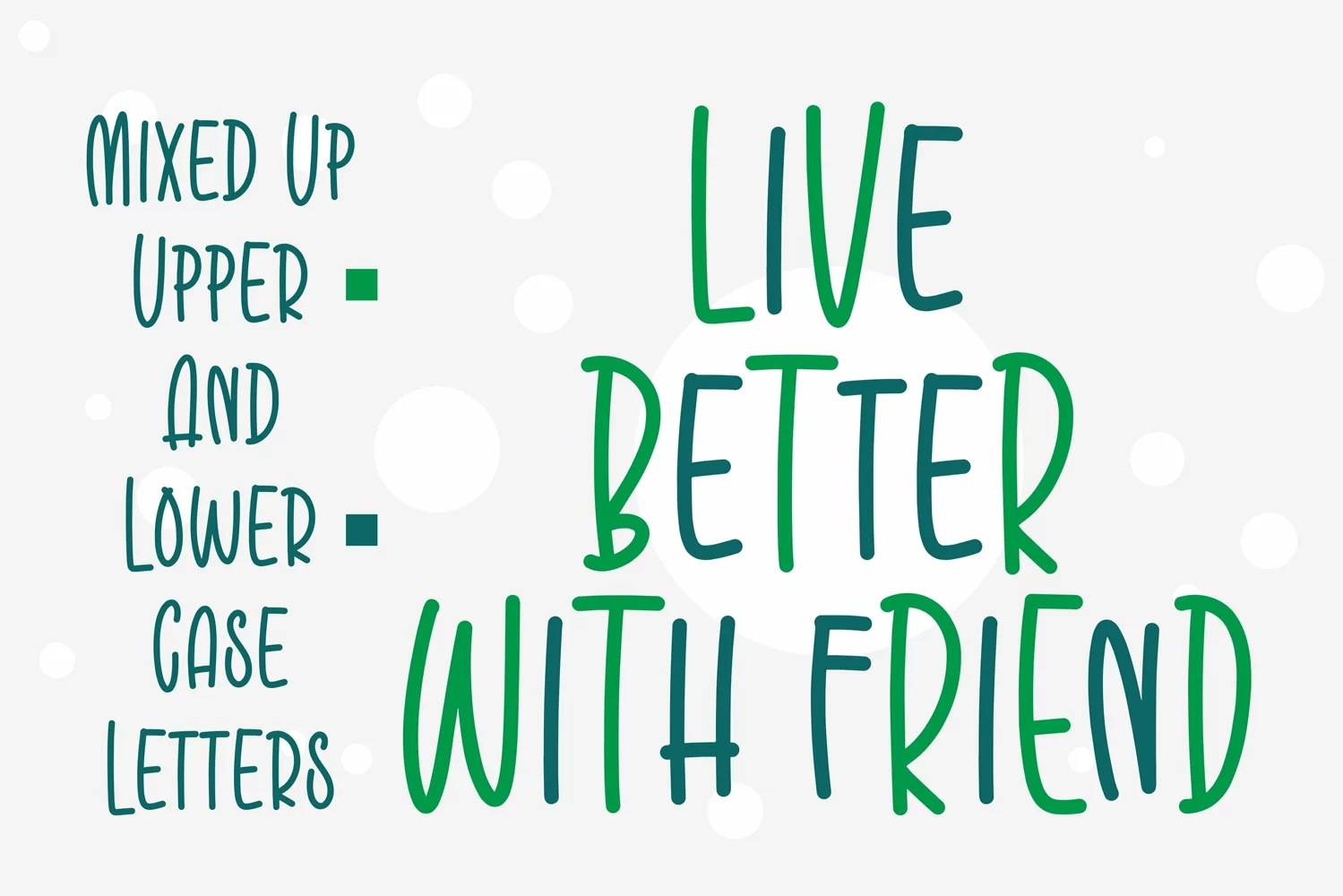
Spring Garden is a duo-styled (script and sans serif) font that feels equally charming and delicate. Spring Garden will turn any creative idea into a standout!